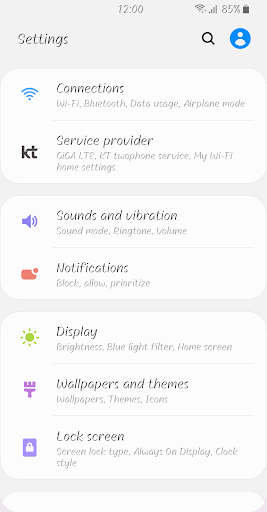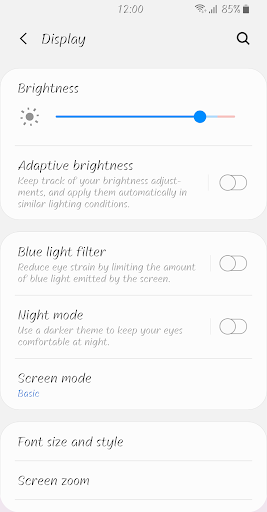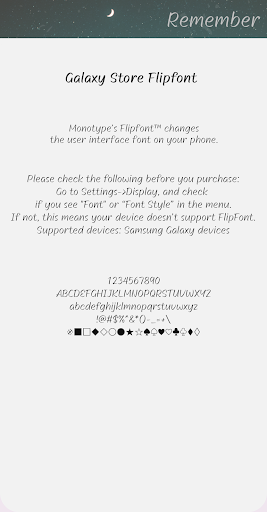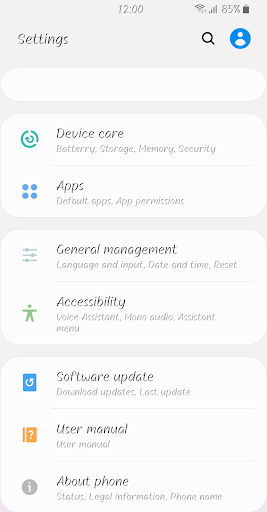
ZF Remember
This font is a neat pen-style font written neatly.
The soft movement and natural change in thickness felt in the ink pen show a comfortable and stable appearance.